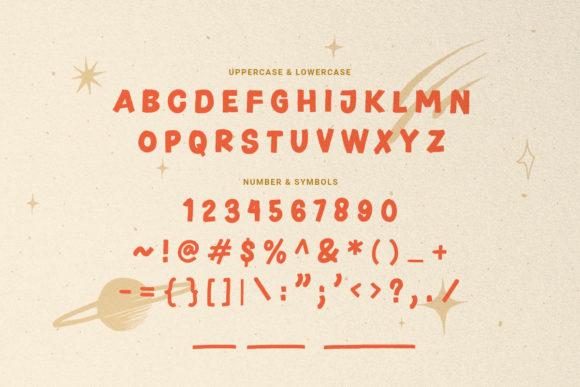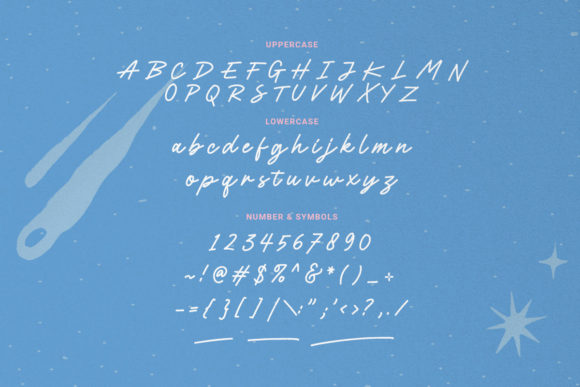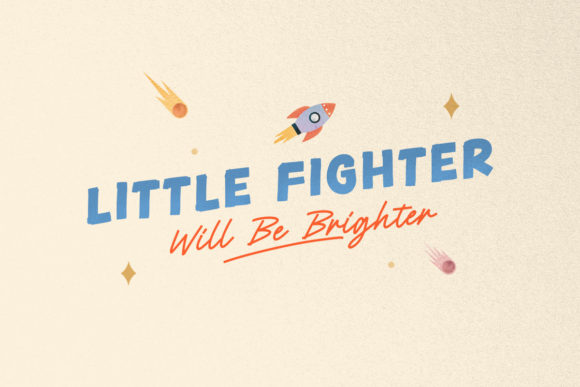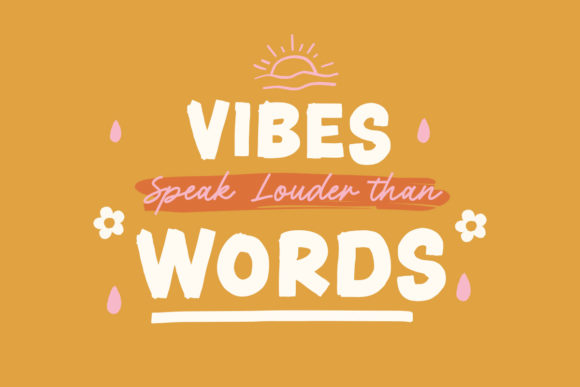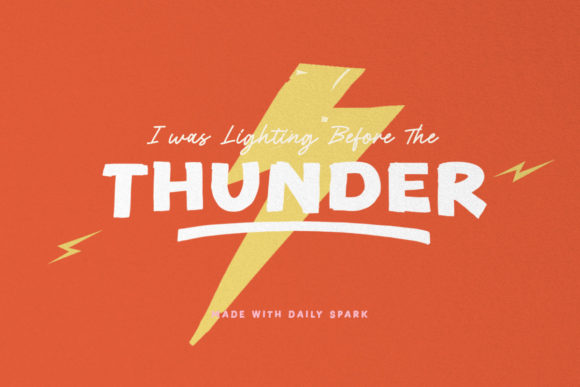
About Daily Spark Font
“Daily Spark” is a font package that offers a combination of two distinct fonts: “Bold Sans” and “Script.” These fonts are designed to complement each other, creating a harmonious and versatile typographic pairing. Whether used for branding, merchandise, or any other occasion, “Daily Spark” provides a well-rounded choice for a variety of design projects.
The charm of “Daily Spark” lies in its ability to seamlessly blend two font styles that work in harmony. The “Bold Sans” font brings a sense of boldness and structure, while the “Script” font adds a touch of handmade elegance. This combination allows for diverse design applications and enhances the typography’s visual appeal.
From branding projects that require a balanced combination of font styles to merchandise designs that demand versatility, “Daily Spark” becomes a reliable tool. Its ability to evoke a sense of handmade artistry makes it especially suitable for quotes and projects that require a personal touch.
Incorporating “Daily Spark” into your design endeavors means embracing its ability to offer a dynamic duo of font styles. By utilizing this package, you’re enhancing the visual allure of your work and ensuring that your designs resonate effectively with your intended audience. This font package becomes a valuable asset for creating engaging and versatile typography that stands out across various design occasions.